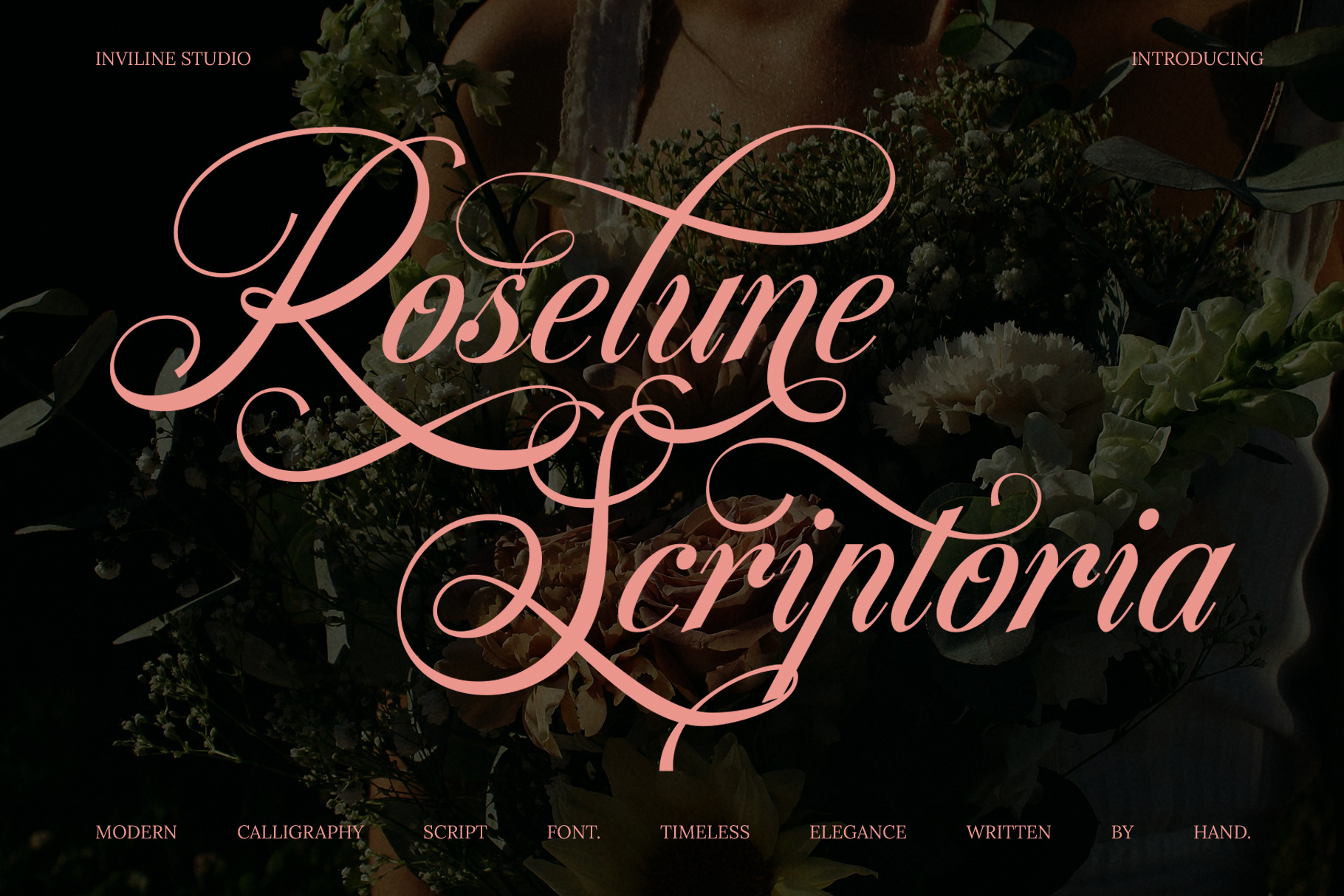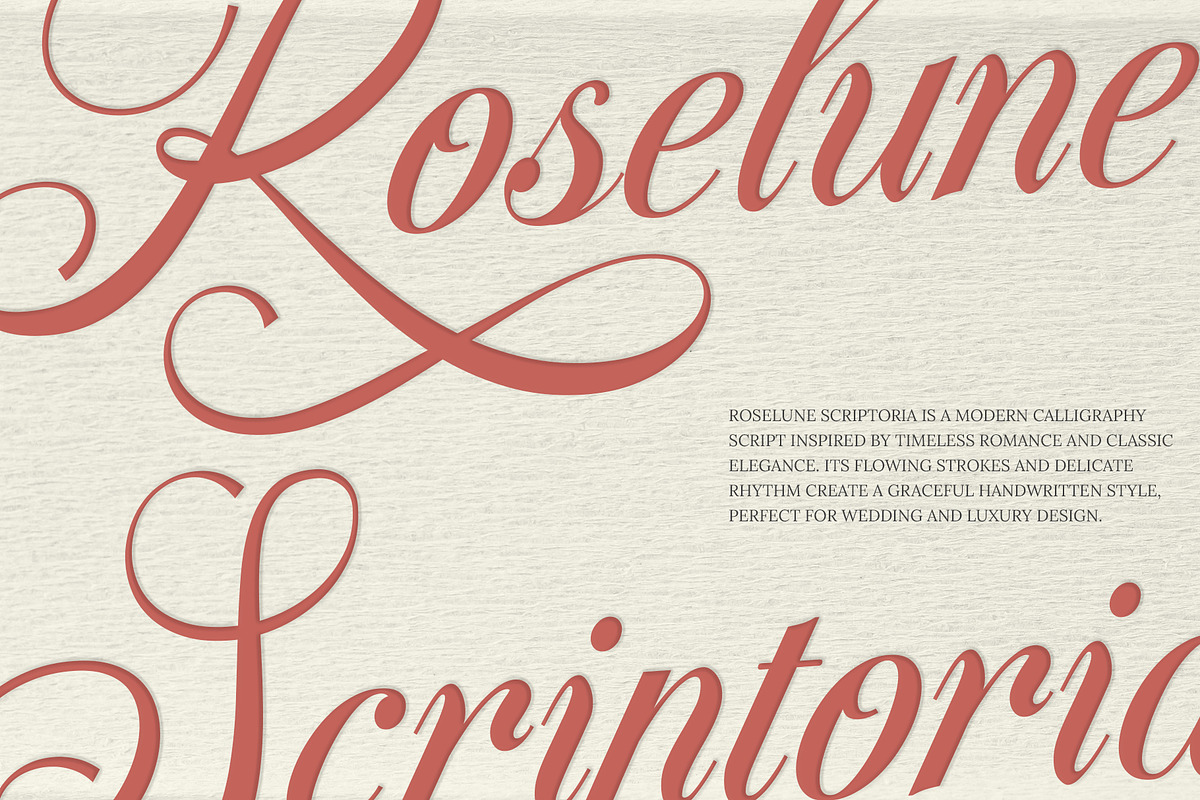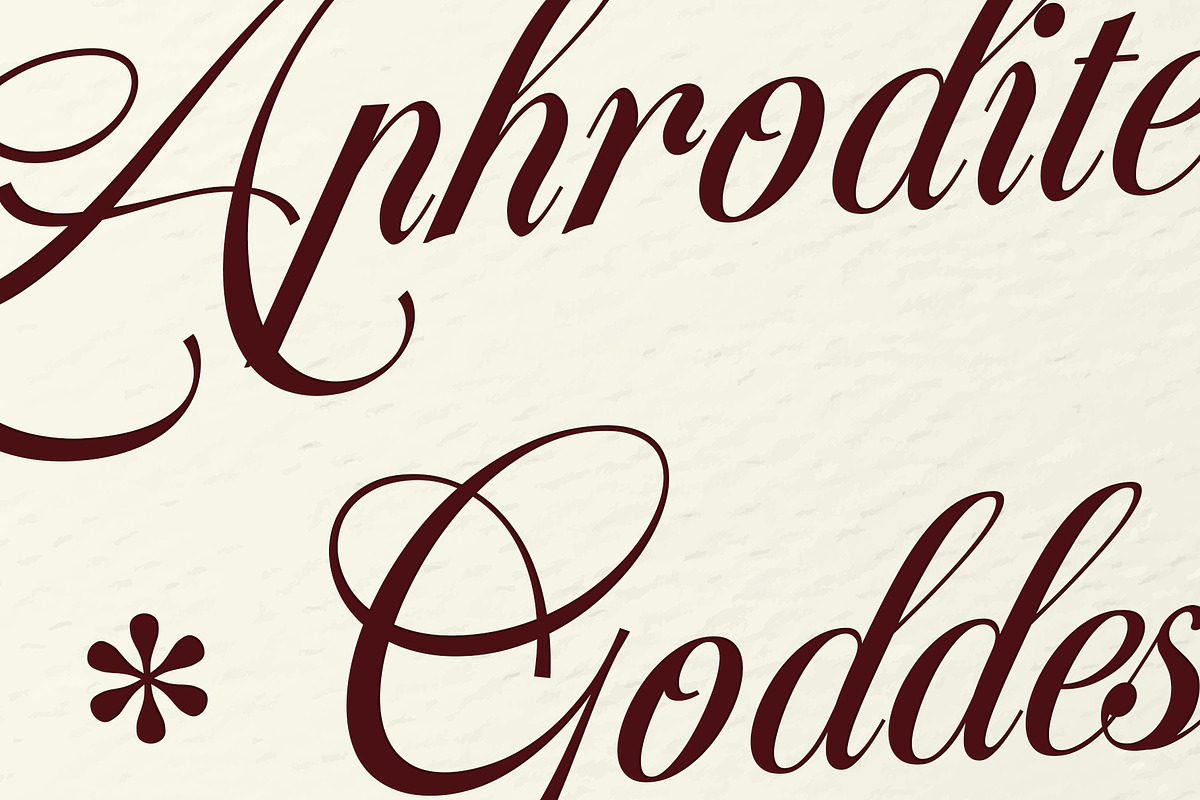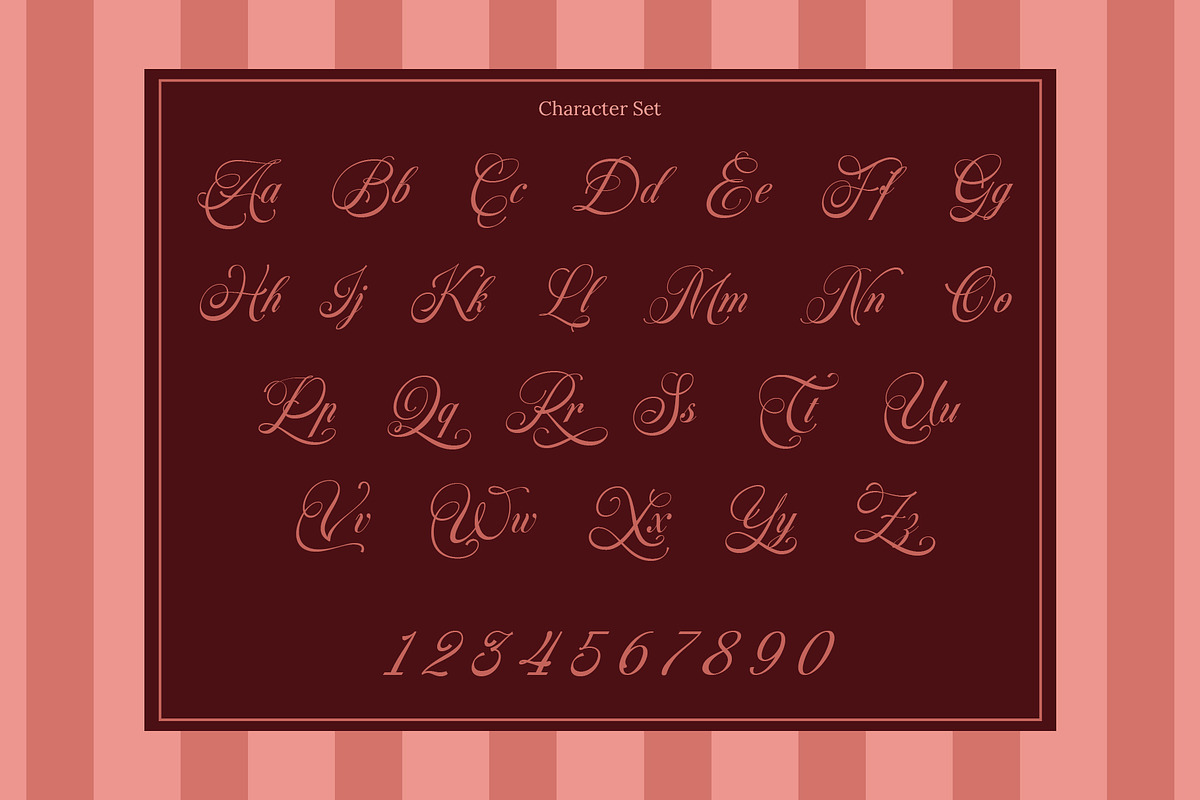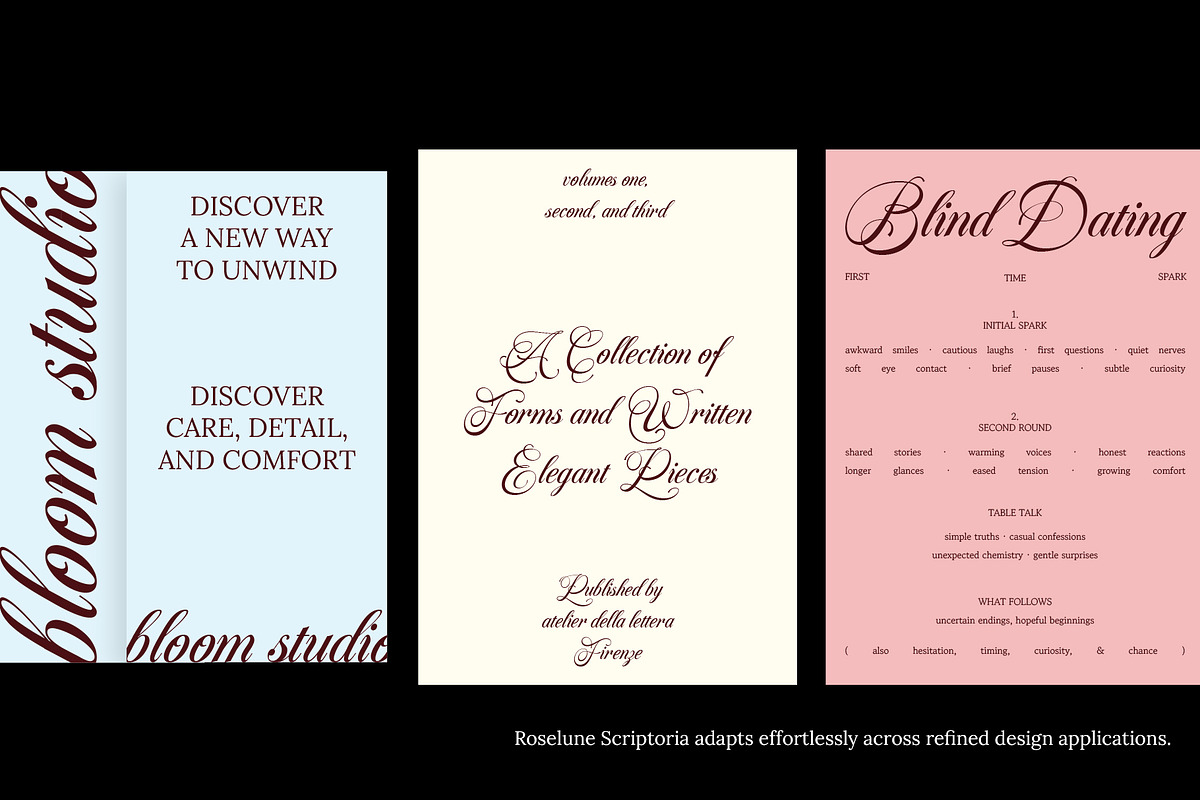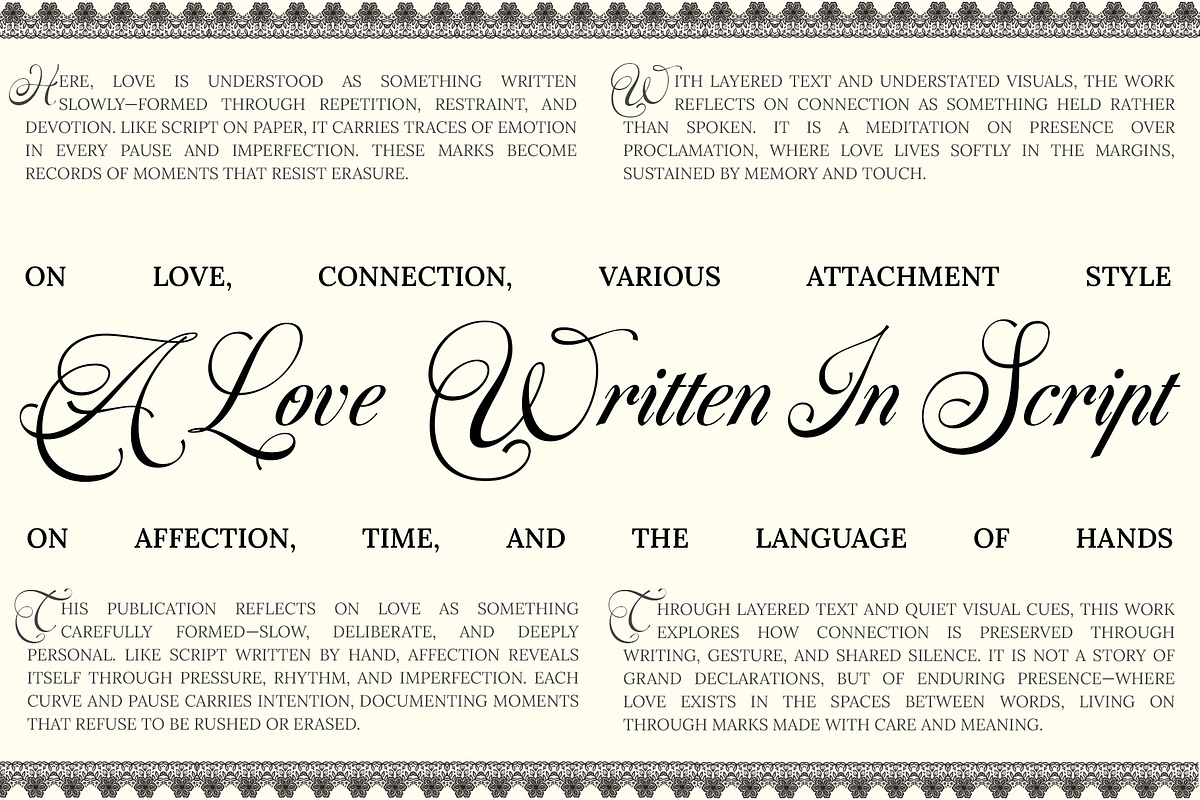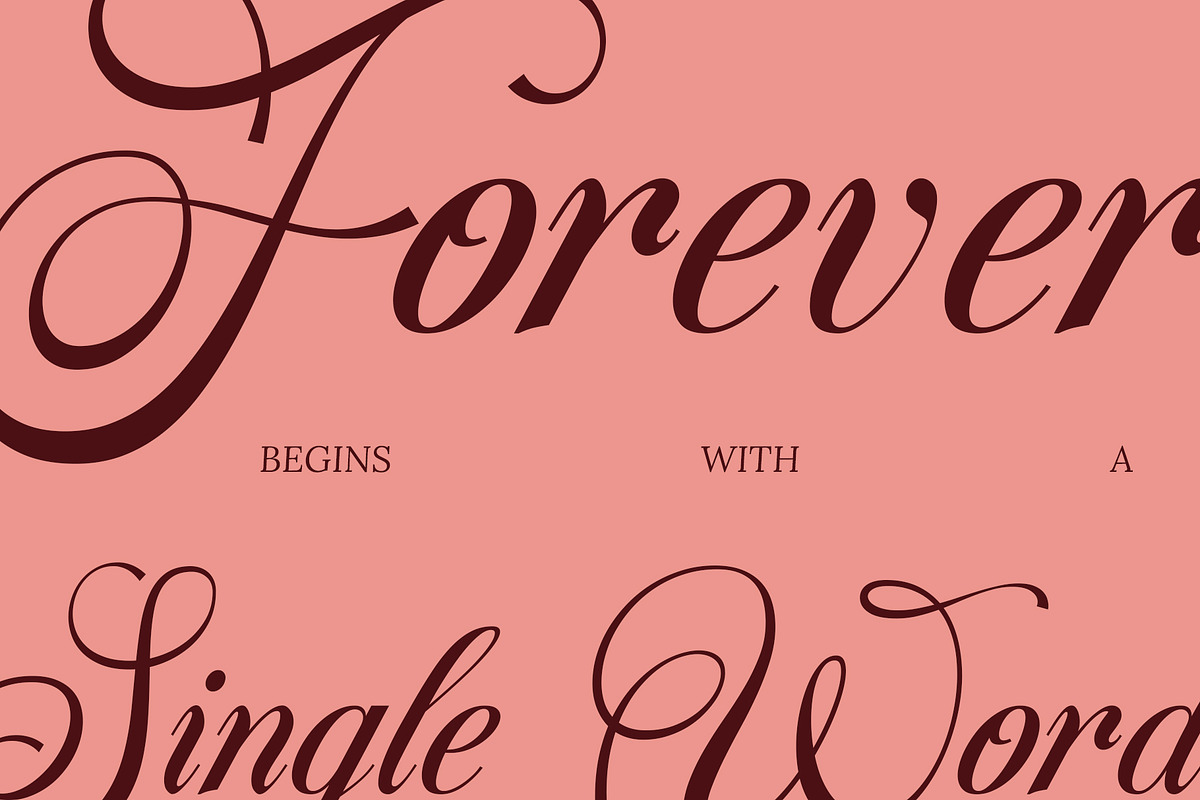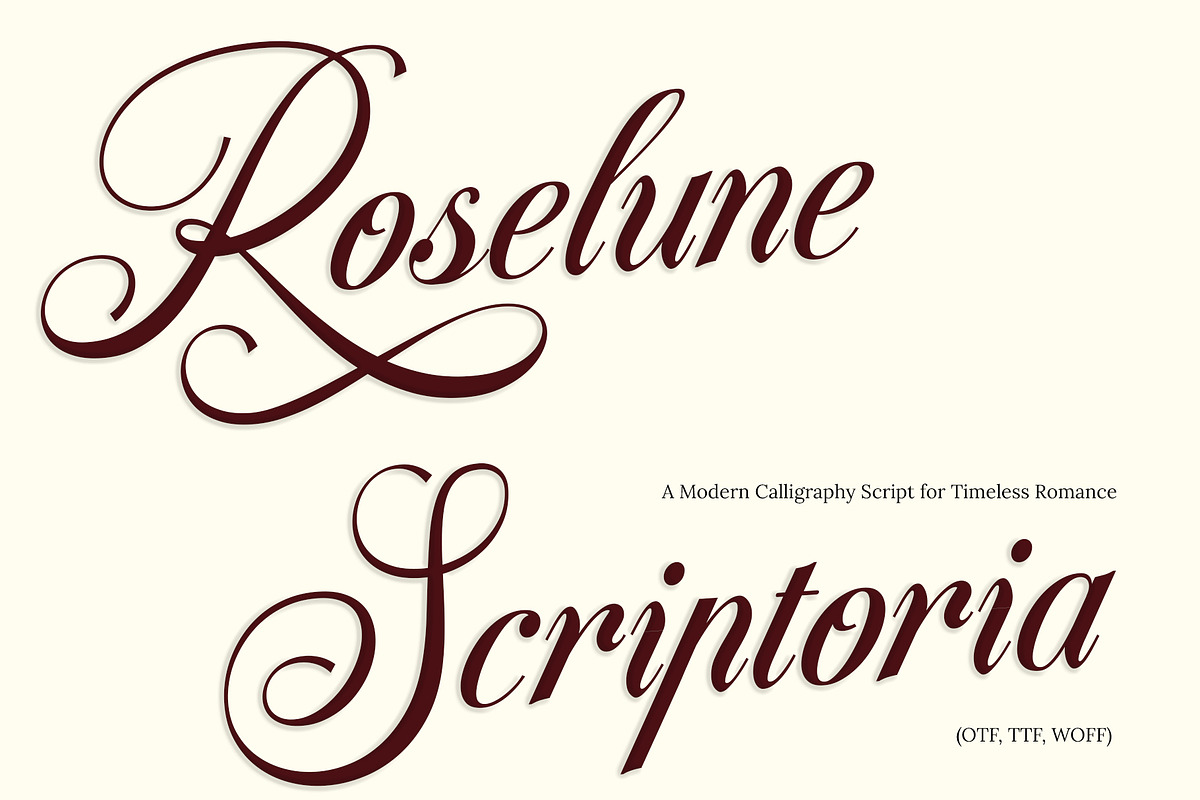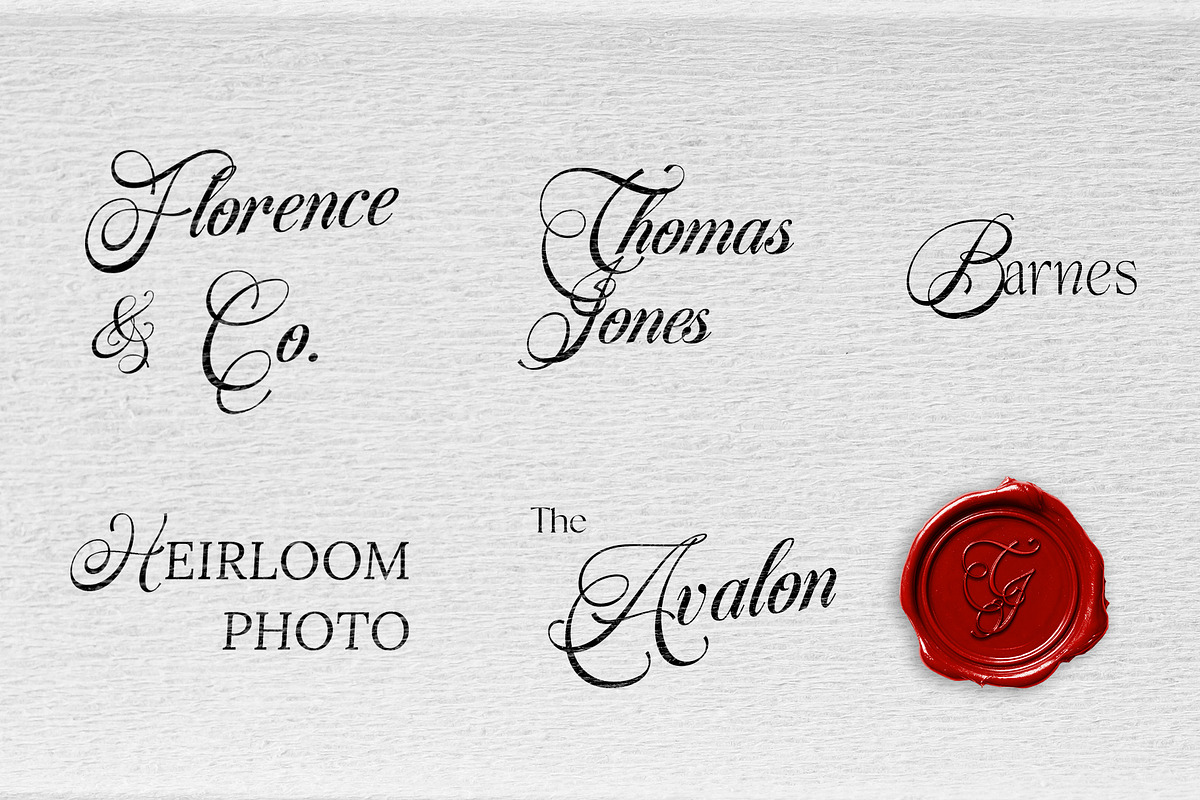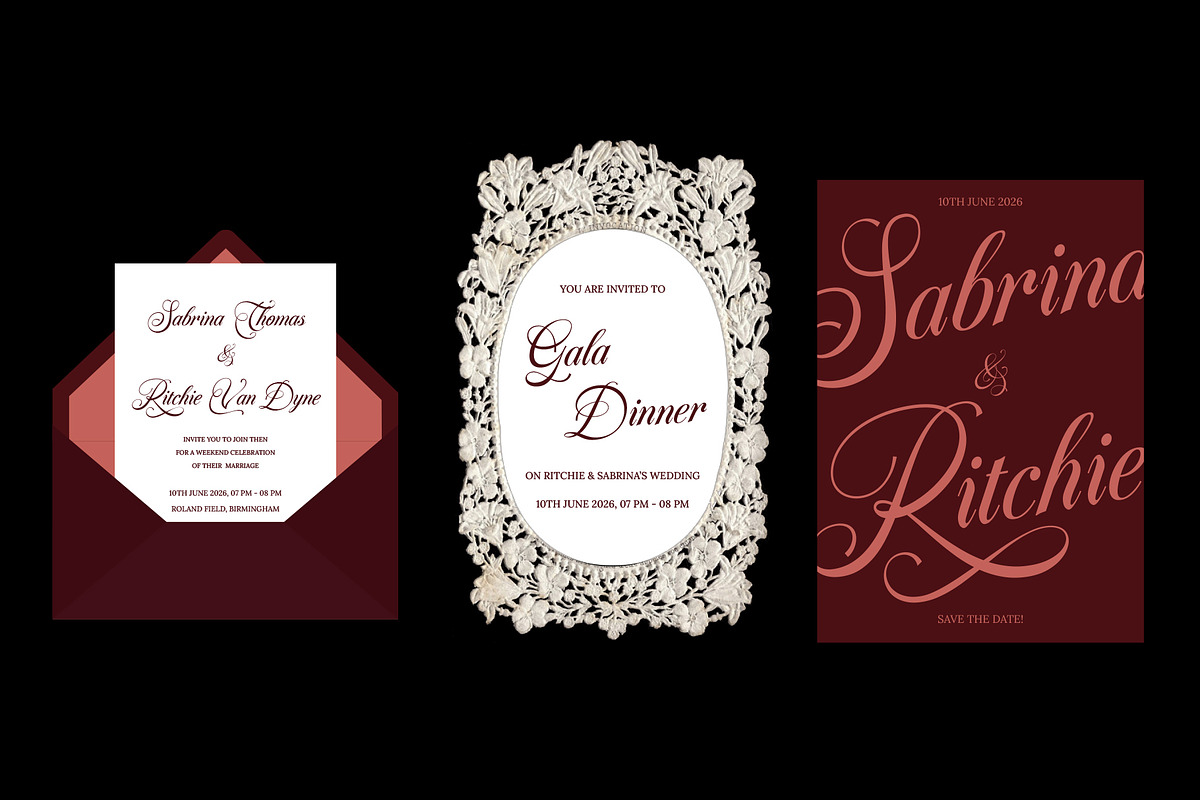
Roselune Scriptoria - Script Font
Roselume Scriptoria is a refined modern calligraphy script inspired by romantic florals, timeless wedding stationery, and the elegance of traditional hand lettering. Its graceful curves, dramatic flourishes, and delicate contrast create a luxurious handwritten appearance.
Designed for projects that require beauty, romance, and sophistication, Roselume Scriptoria brings a distinctive personal character to names, headlines, invitations, logos, packaging, and editorial compositions.
Roselume Scriptoria combines flowing calligraphic letterforms with expressive swashes and decorative capital characters. The smooth connections and extended strokes make each word feel carefully written by hand.
The font works especially well for large display text, names, romantic phrases, monograms, and elegant visual identities. Standard characters provide a balanced calligraphy style, while alternates and ligatures allow you to create more expressive and customized lettering compositions.
Stylistic alternate characters
Decorative beginning and ending swashes
Ligature combinations
Western European multilingual characters
Modern luxury calligraphy style
Elegant floral and romantic personality
Smooth handwritten connections
Dramatic uppercase flourishes
Decorative beginning and ending strokes
High-contrast calligraphic letterforms
Complete numerals, symbols, and punctuation
OpenType features for alternates and ligatures
Works beautifully at medium and large display sizes
Stylistic alternates for select characters: R, S, L, A, G, F, V, P
18 ligature pairs: st, br, cr, ct, fr, ist, op, or, ox, th, Tr, tt, wn, ff, fi, fl, ffi, ft
Multilingual support: Western European characters with diacritics (À, Á, Â, Ç, É, Ñ, Ø, Ü, etc.)
For the best result, use the font at medium or large sizes and provide enough spacing around extended flourishes. Pair it with a refined serif or minimalist sans-serif font for supporting information and body text.